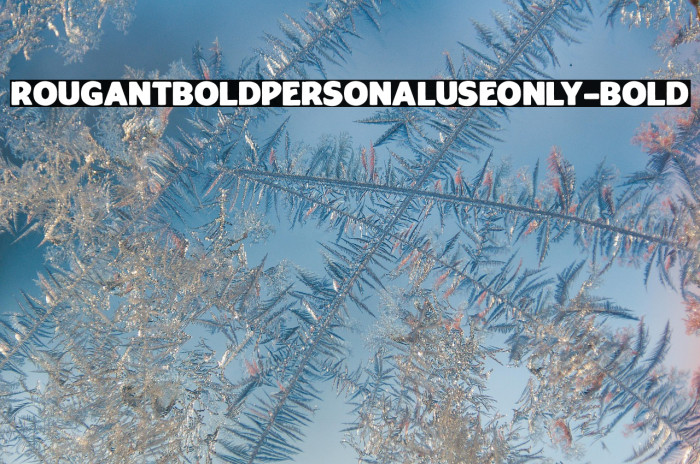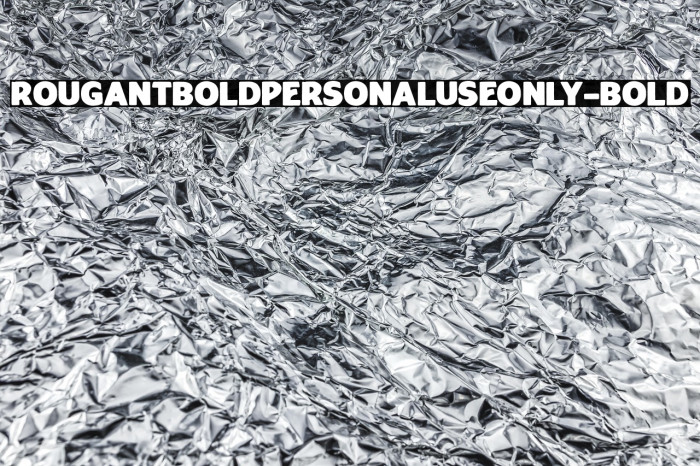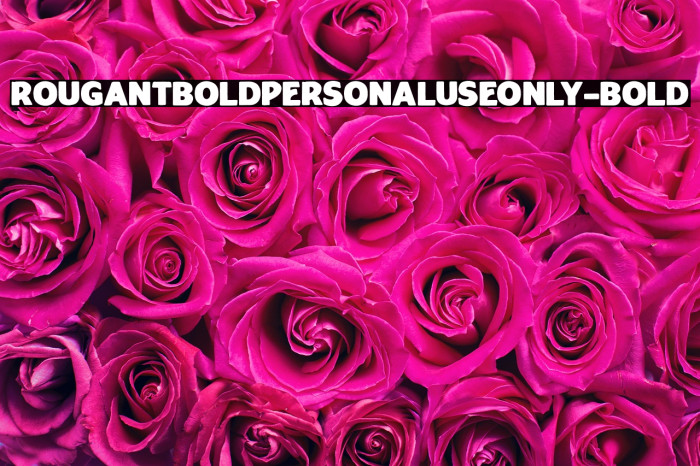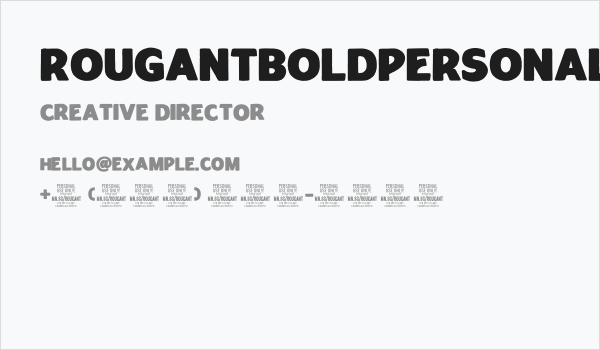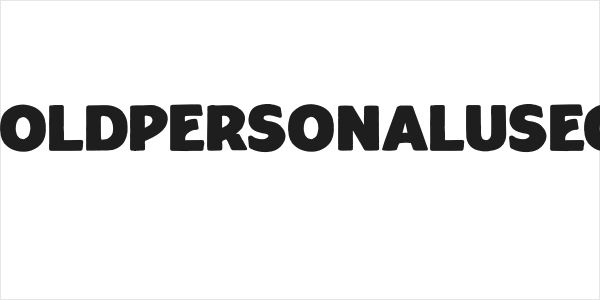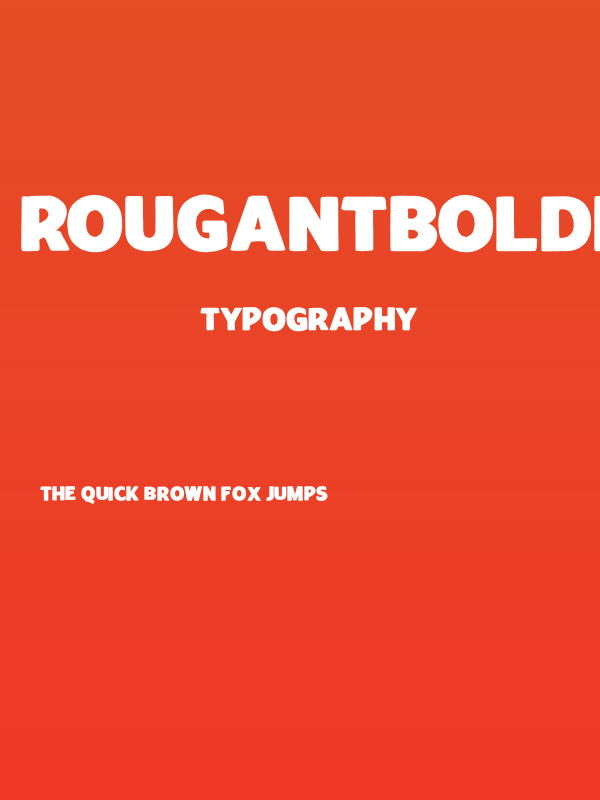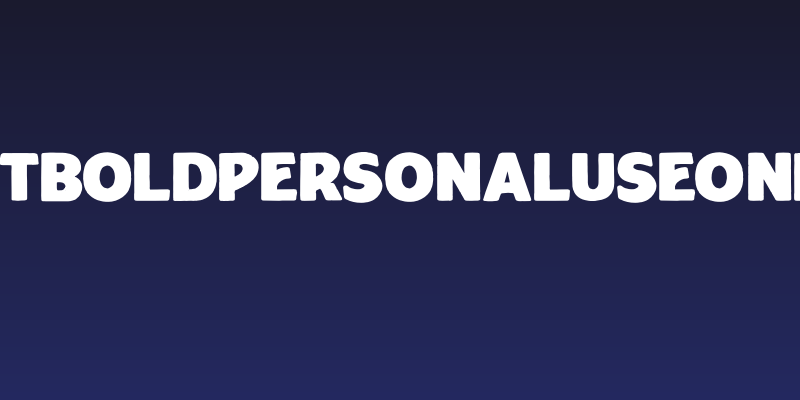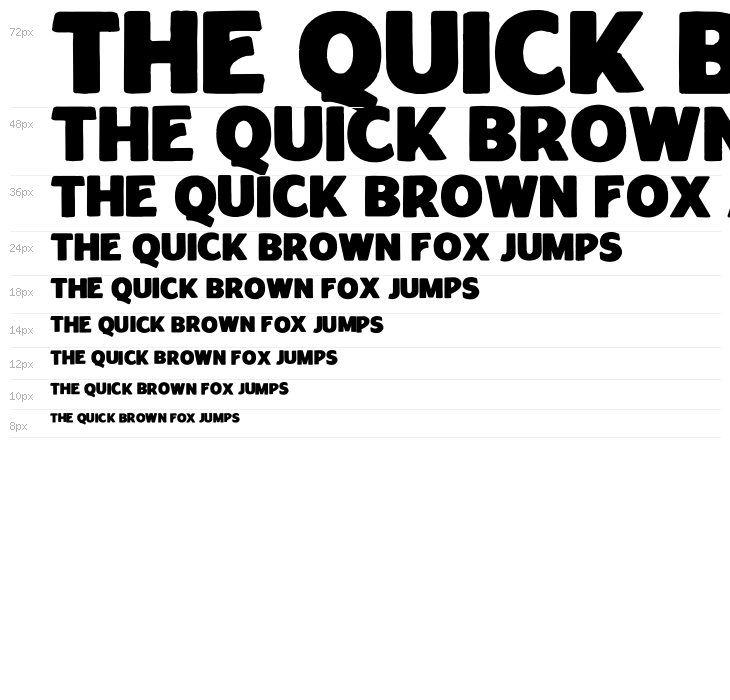
RougantBoldPERSONALUSEONLY-Bold Font
RougantBoldPERSONALUSEONLY-Bold Description
This font features a bold and impactful style with thick, rounded strokes that convey a sense of strength and modernity. The uppercase and lowercase letters are consistent in their weight, providing a cohesive look across all characters. The numbers and special characters maintain the same boldness, ensuring uniformity throughout. The font's design is straightforward yet powerful, making it suitable for attention-grabbing headlines and titles. Its rounded edges soften the overall appearance, adding a touch of friendliness to its robust structure.
| Proposed Projects | Ideal for headlines, posters, branding, and any design requiring a strong visual impact. |